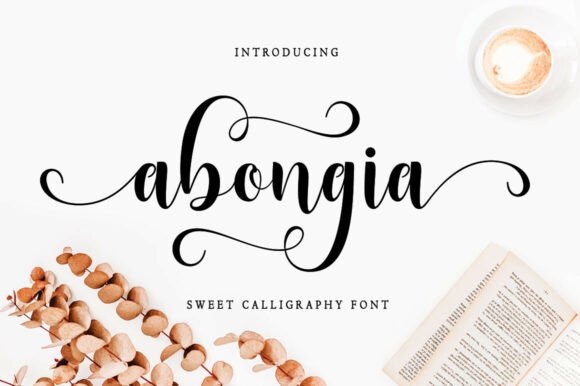
Discover the Elegance of Abongia Font: Elevate Your Designs with a Unique Handwritten Style
In the world of typography, a font can make or break a design. For those seeking a touch of elegance, sophistication, and a dash of playfulness, the Abongia font is an exceptional choice. This very cute, elegant, and unique handwritten font is expertly designed to capture the hearts of designers and crafters alike, offering a versatile tool to bring creative ideas to life.
The Charm of Abongia
Abongia’s attractiveness lies in its sleek, clean, feminine, sensual, and glamorous appearance. Its classic style, marked by many fancy letter connections, not only adds a touch of sophistication but also ensures that the text is very easy to read. This balance of aesthetics and functionality makes Abongia a true favourite among typography enthusiasts.
One of the standout features of the Abongia font is its incredible versatility. Its elegant and simple design makes it suitable for a wide range of applications. Whether you’re working on:
• Invitations: Add a touch of class to your wedding, birthday, or event invitations.
• Labels: Elevate your product labels with a sophisticated and eye-catching font.
• Restaurant Menus: Give your menu a gourmet look that will make your offerings irresistible.
• Logos: Create a memorable brand identity with a unique and elegant logo.
• Fashion and Make Up: Perfect for branding in the fashion and beauty industries, where style and elegance are paramount.
• Stationery: Add a professional yet personal touch to your letters, notes, and cards.
• Novels, Magazines, and Books: Give your publication a classic and sophisticated look.
• Greeting/Wedding Cards: Make your cards stand out with a beautiful and heartfelt font.
• Packaging: Enhance your product packaging with a font that speaks of luxury and quality.
• Advertisements: Capture attention with elegant and readable text in your ads.
Why Choose Abongia?
Choosing Abongia for your design projects comes with numerous benefits:
• Ease of Reading: Despite its elegant and fancy connections, Abongia remains very easy to read, making it perfect for both headings and body text.
• Flexibility: Its versatile nature allows it to be used in both digital and print media, across various design projects.
• Uniqueness: Stand out from the crowd with a font that is both unique and memorable.
• Professionalism: Add a professional touch to your designs, making them suitable for high-end clients or personal projects.
Tips for Using Abongia Effectively
To make the most out of Abongia, consider the following tips:
• Mix and Match: Combine Abongia with other fonts to create a dynamic and interesting design. Its elegant nature pairs well with both serif and sans-serif fonts.
• Play with Sizes: Use Abongia in various sizes to create a hierarchy of information, making your design more engaging and readable.
• Emphasize with Colors: While Abongia shines in its natural form, experimenting with colors can add another layer of meaning and aesthetics to your design.
The Abongia font is a powerful tool for designers and crafters looking to infuse their projects with elegance, sophistication, and a touch of uniqueness. Its versatility, readability, and beautiful design make it an excellent choice for a wide range of applications. Whether you’re aiming to create a stunning logo, an elegant invitation, or a captivating advertisement, Abongia is sure to elevate your creative ideas to the highest level. Discover the charm of Abongia today and transform your designs with its timeless beauty.